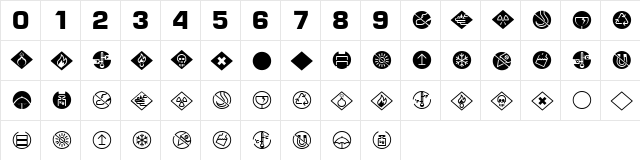
Care Medium
| Foundry | Copr. Johannes Erler for FontShop International |
Design Context for Care Typeface
Care takes a measured approach to typography — its balanced proportions and neutral character make it a reliable workhorse for both digital and print work.